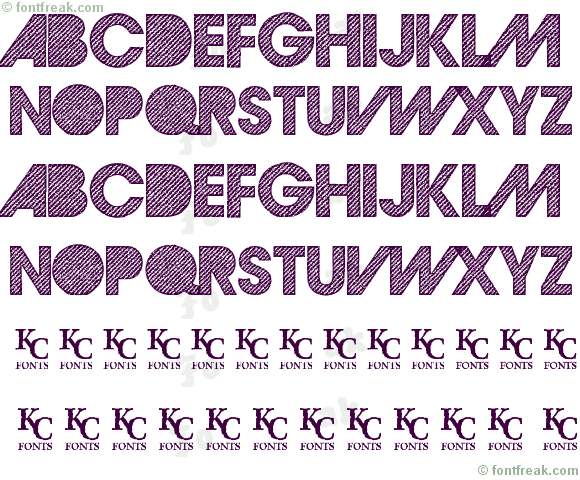
GoodMorningAfternoonDEMO
GoodMorningAfternoonDEMO by Kevin Christopher is a charming display font that captures the essence of playful creativity. This typeface features a unique combination of boldness and whimsy, making it ideal for various design projects. The font exhibits a distinctive stroke weight that gives it a robust appearance, while the well-balanced spacing enhances its readability. With its decorative elements, including playful curves and a lively structure, GoodMorningAfternoonDEMO stands out as a fun option for those looking to add character to their designs.
This font is particularly well-suited for wedding invitations, where its inviting style can set a joyful tone for the occasion. Additionally, it shines in creating movie posters that seek to convey a sense of excitement and adventure. Restaurant menus can also benefit from its unique flair, attracting diners with its eye-catching presentation. Small business owners looking to establish a memorable brand identity will find this font effective in logo design and marketing materials. Content creators can leverage GoodMorningAfternoonDEMO for social media graphics, ensuring their posts capture attention and convey a sense of personality.
The target audience for this font includes graphic designers, small business owners, and content creators who are looking for a typeface that adds a touch of creativity and fun to their projects. The GoodMorningAfternoonDEMO font free download offers a fantastic opportunity for anyone seeking to elevate their designs without the burden of licensing fees.
What truly sets GoodMorningAfternoonDEMO apart is its ability to blend playfulness with professionalism. It invites creativity while remaining versatile enough for various applications, making it a valuable addition to any designer’s toolkit. Whether you're crafting a joyful invitation or a captivating poster, this font is sure to leave a lasting impression.